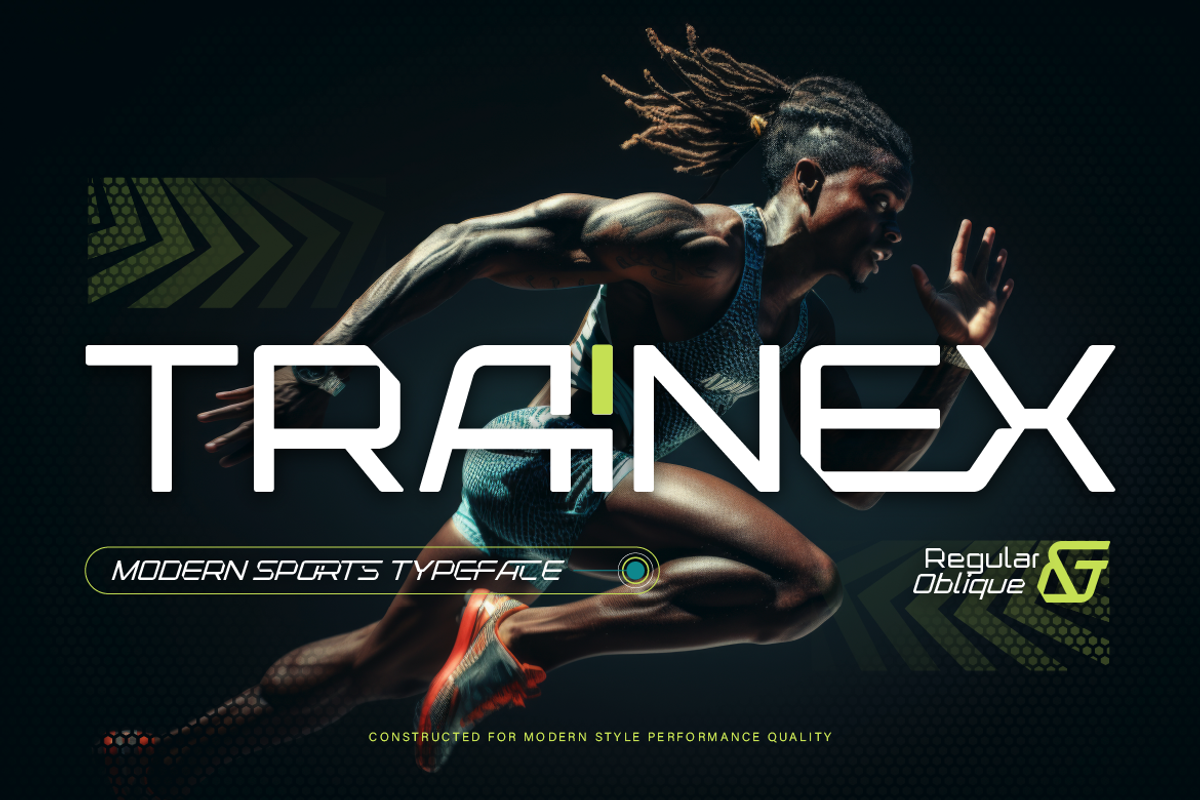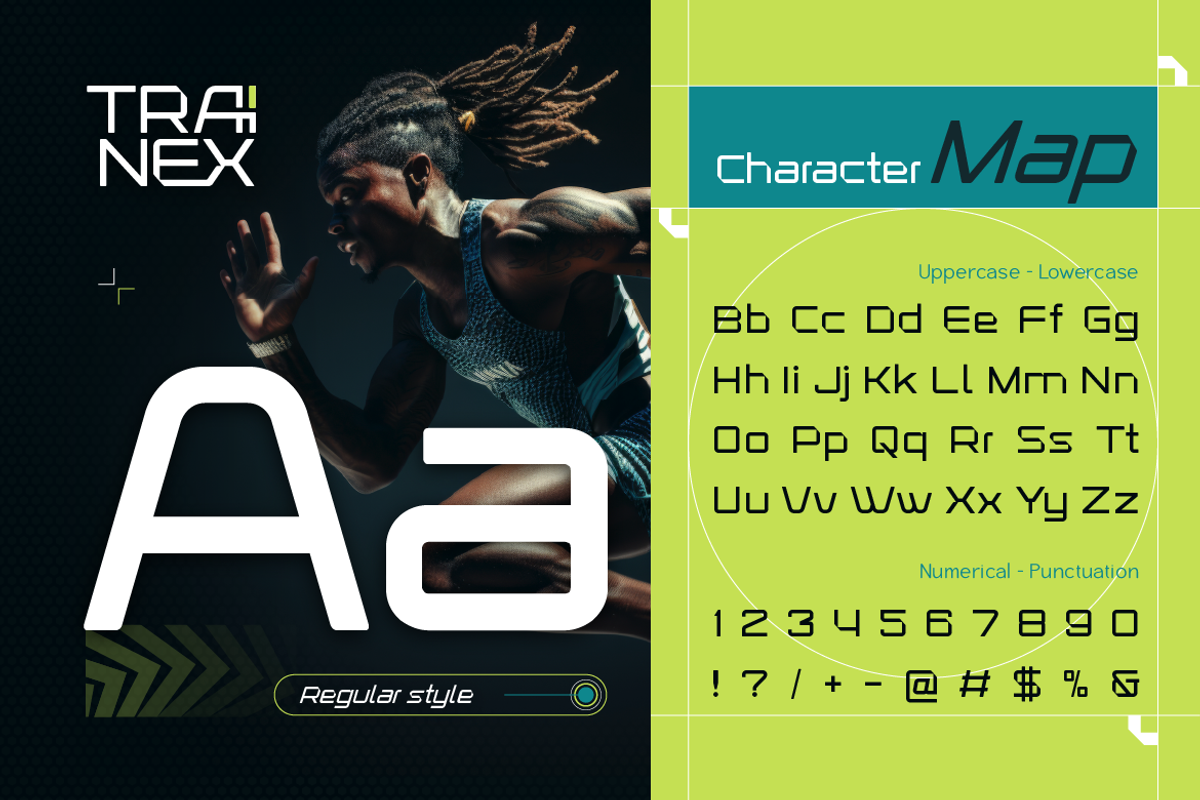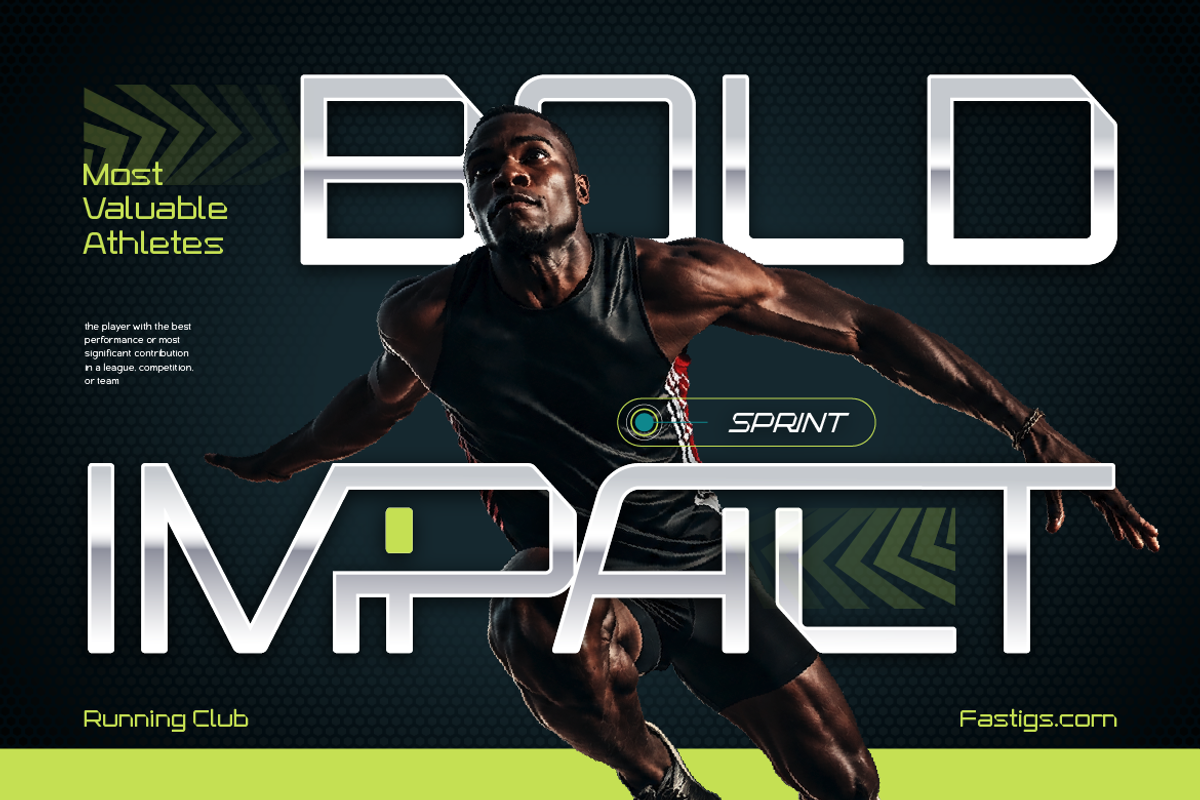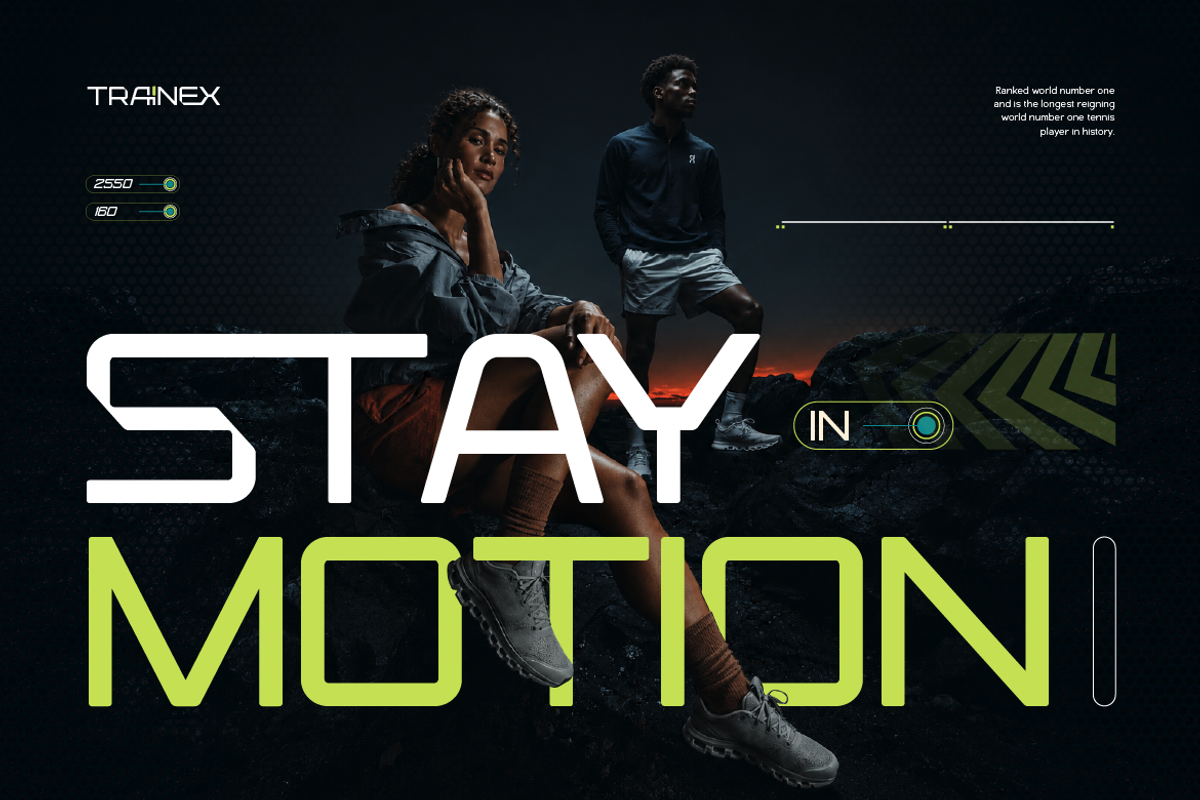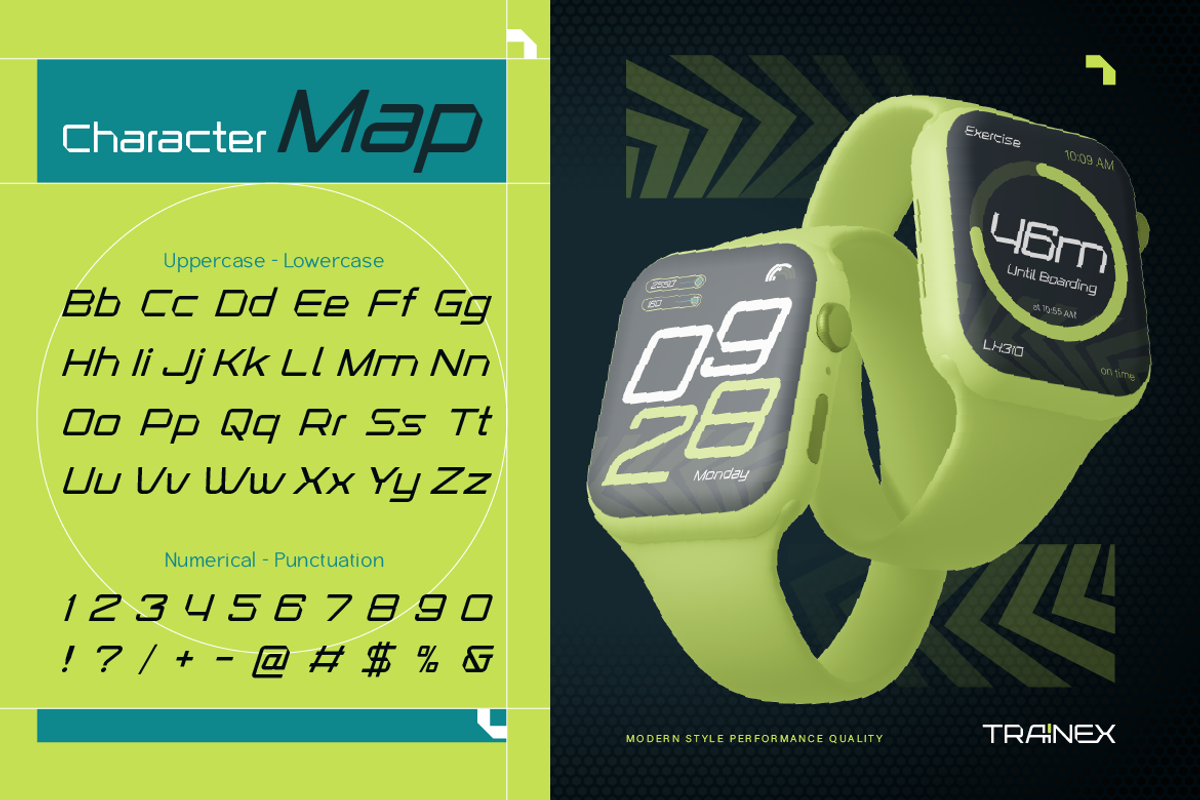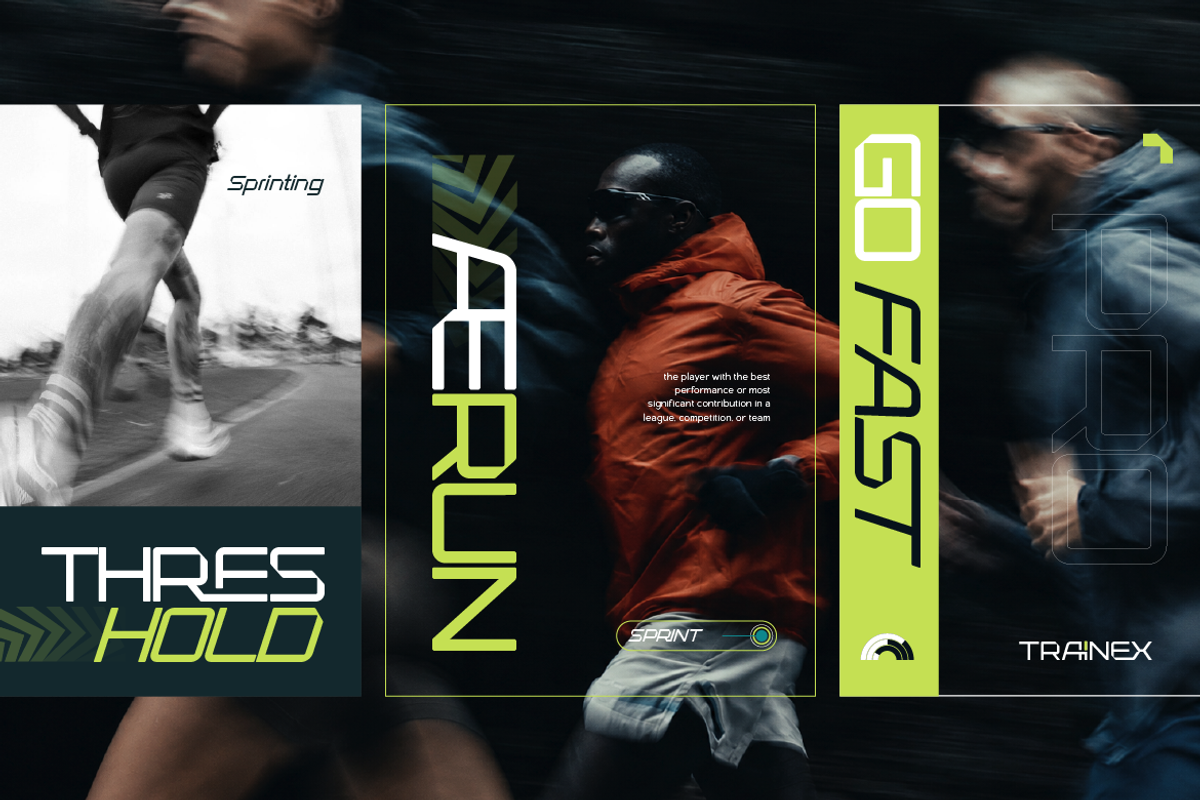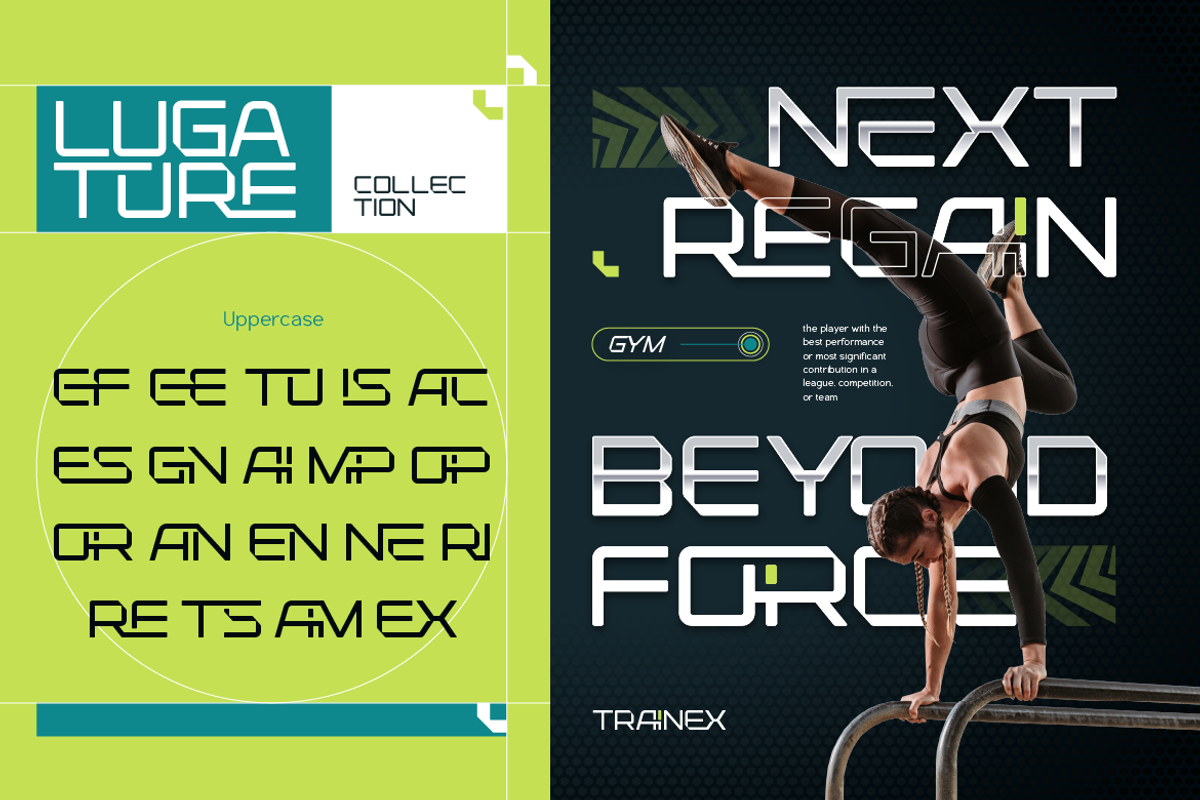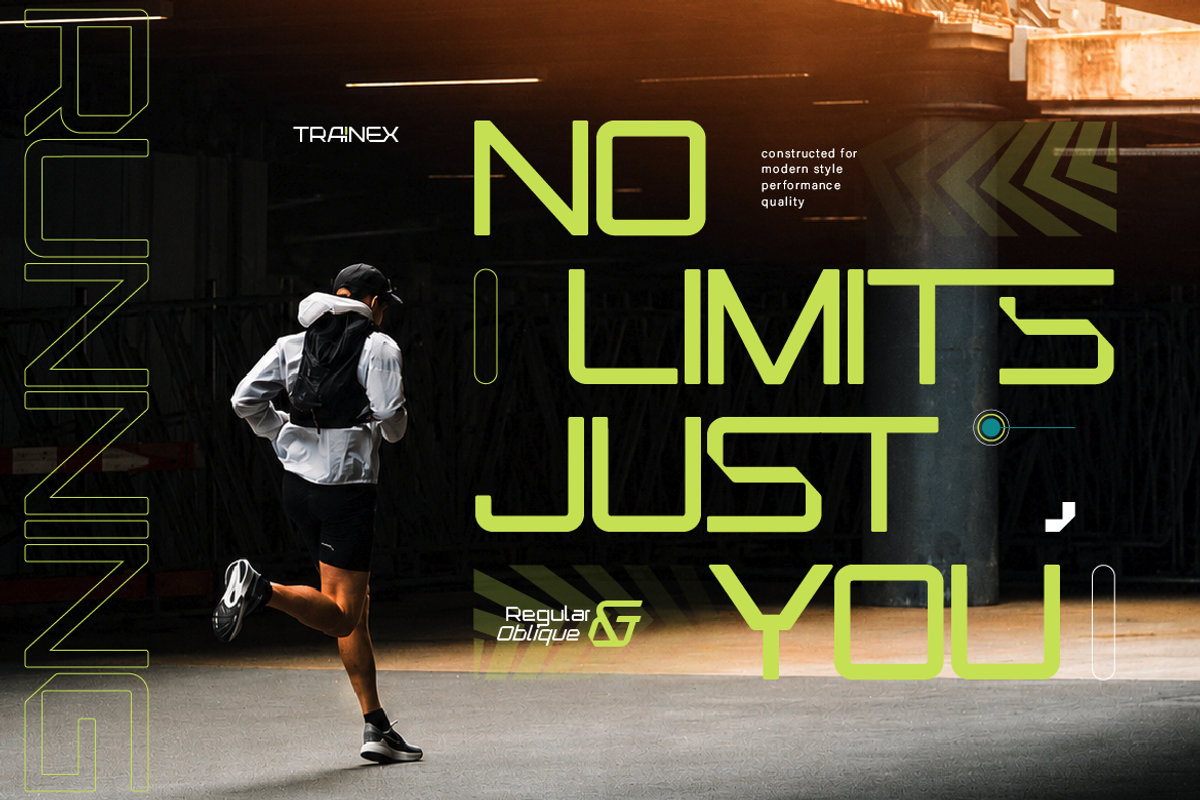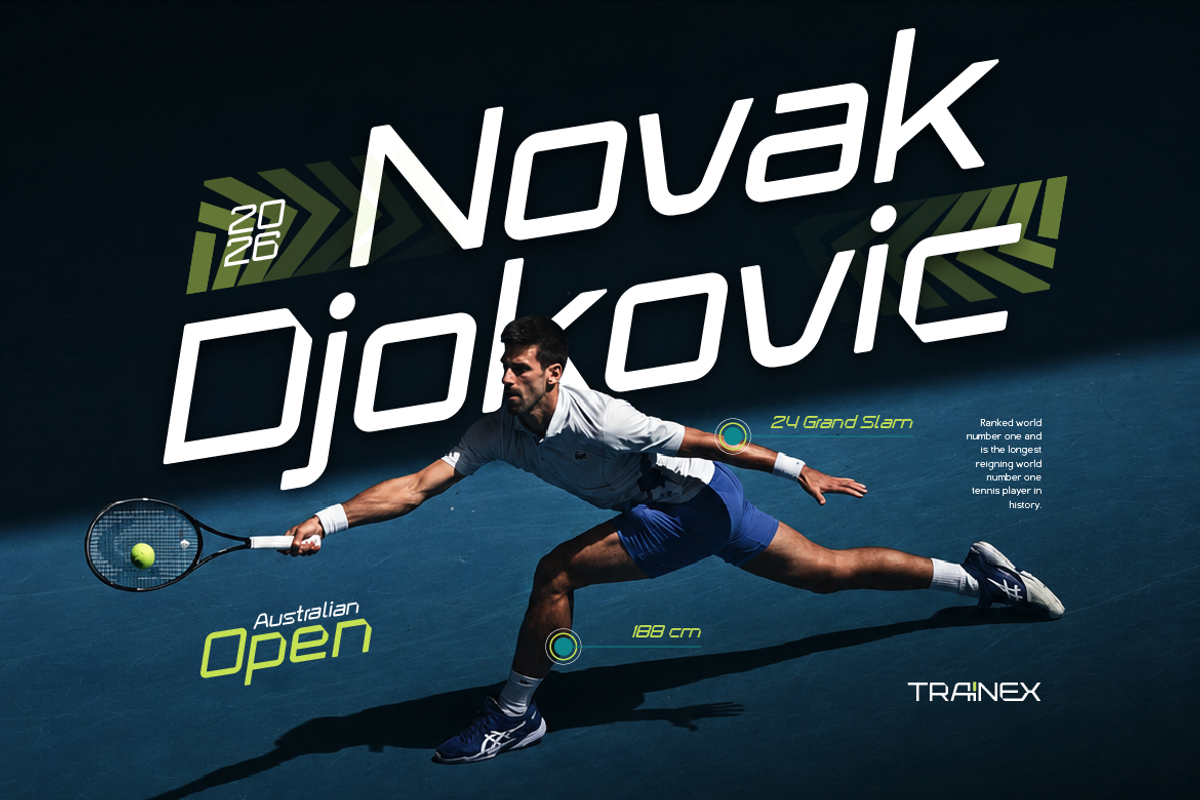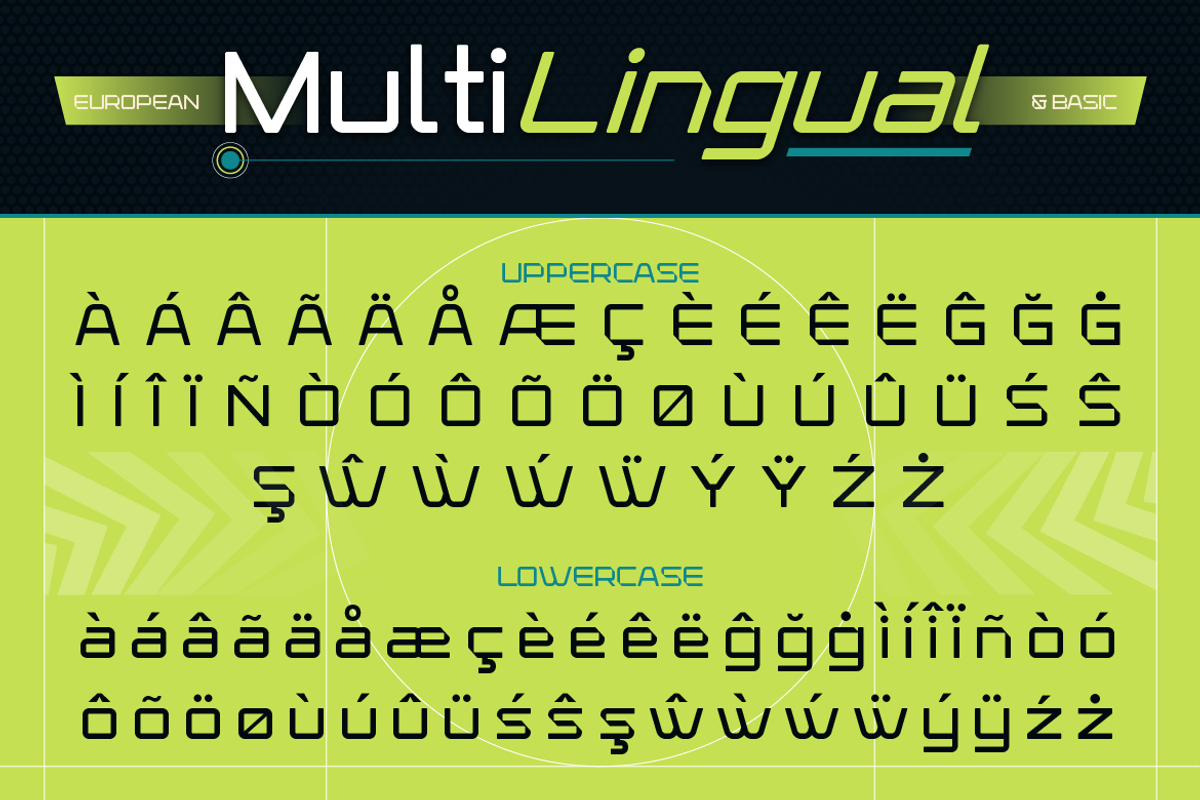
Trainex
Trainex is a modern sports typeface designed to capture the spirit of movement, competition, and peak performance.
Built on a geometric sans-serif foundation with carefully rounded terminals, Trainex carries a distinctive visual tension, structured enough to feel authoritative, smooth enough to feel contemporary. The letterforms are clean and open, ensuring strong legibility whether you're setting a headline, a team name, or a scoreboard display.
The font ships in two styles designed to work together or stand alone:
Trainex Regular brings a grounded, confident presence. Its balanced proportions and open counters make it versatile across both display and UI applications — from sports branding and packaging to digital interfaces and editorial layouts.
Trainex Oblique turns up the intensity. The forward angle injects a sense of speed and momentum that's ideal for headlines, motion graphics, apparel graphics, and anywhere your design needs to feel like it's already in motion.
Sports branding
Athletic apparel
Gym & fitness identity
Game titles
Esports
Sportswear packaging
Event posters
Mobile apps
Social media content